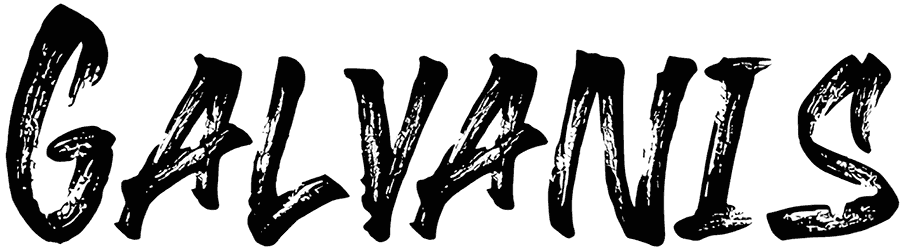
Galvanis Font
Presenting a cool and urban appearance wouldn’t be hard with a modern script font like Galvanis. This hand-lettered item is able to give an artistic and captivating mood to your projects even without lowercase support. This brush font consists of two sets of caps and is a perfect illustration for lots of projects, such as posters, apparel, album covers, and whatnot.